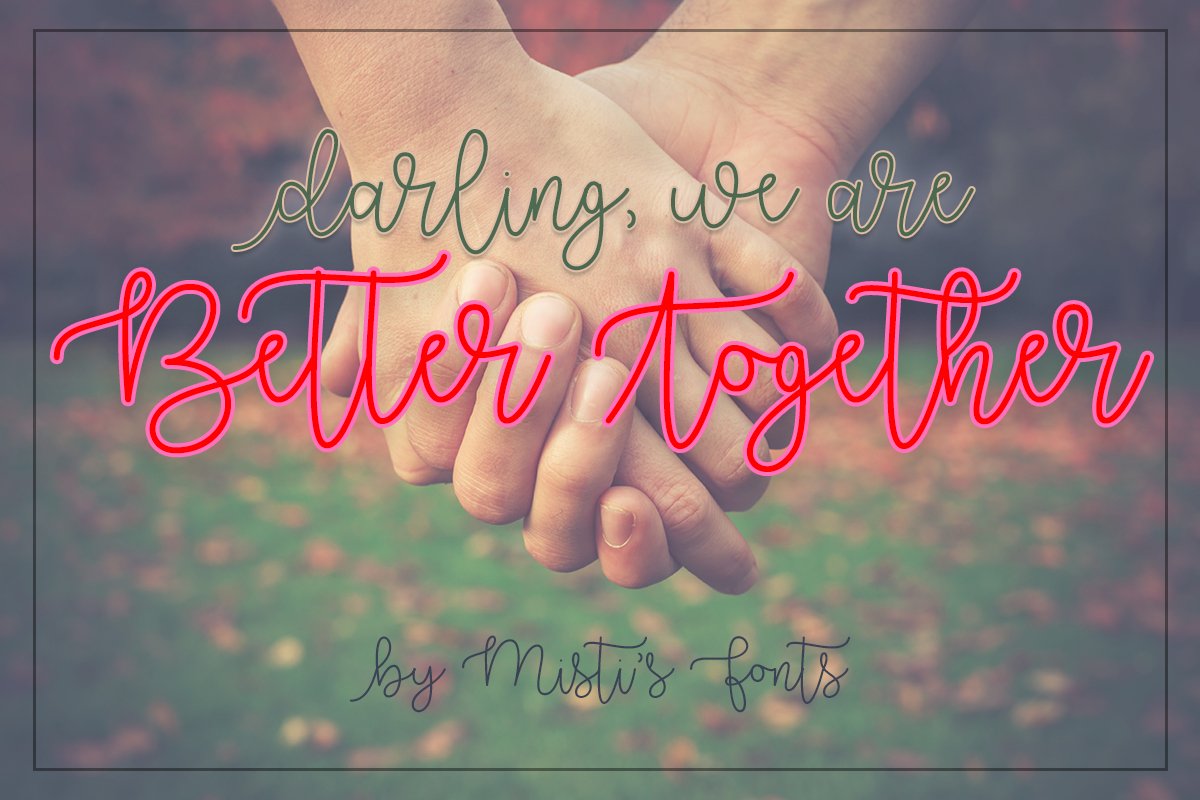
Better Together is a bouncy cursive font with lots of personality (fontonality?)
If you type and asterisk (*) before a lowercase letter, it gives you a leading stroke (see the word "darling" in the poster).
- 236 glyphs (including uppercase, lowercase, numbers, and punctuation)
- Lots
of language support (covers most European languages) and I can add more language support at request!